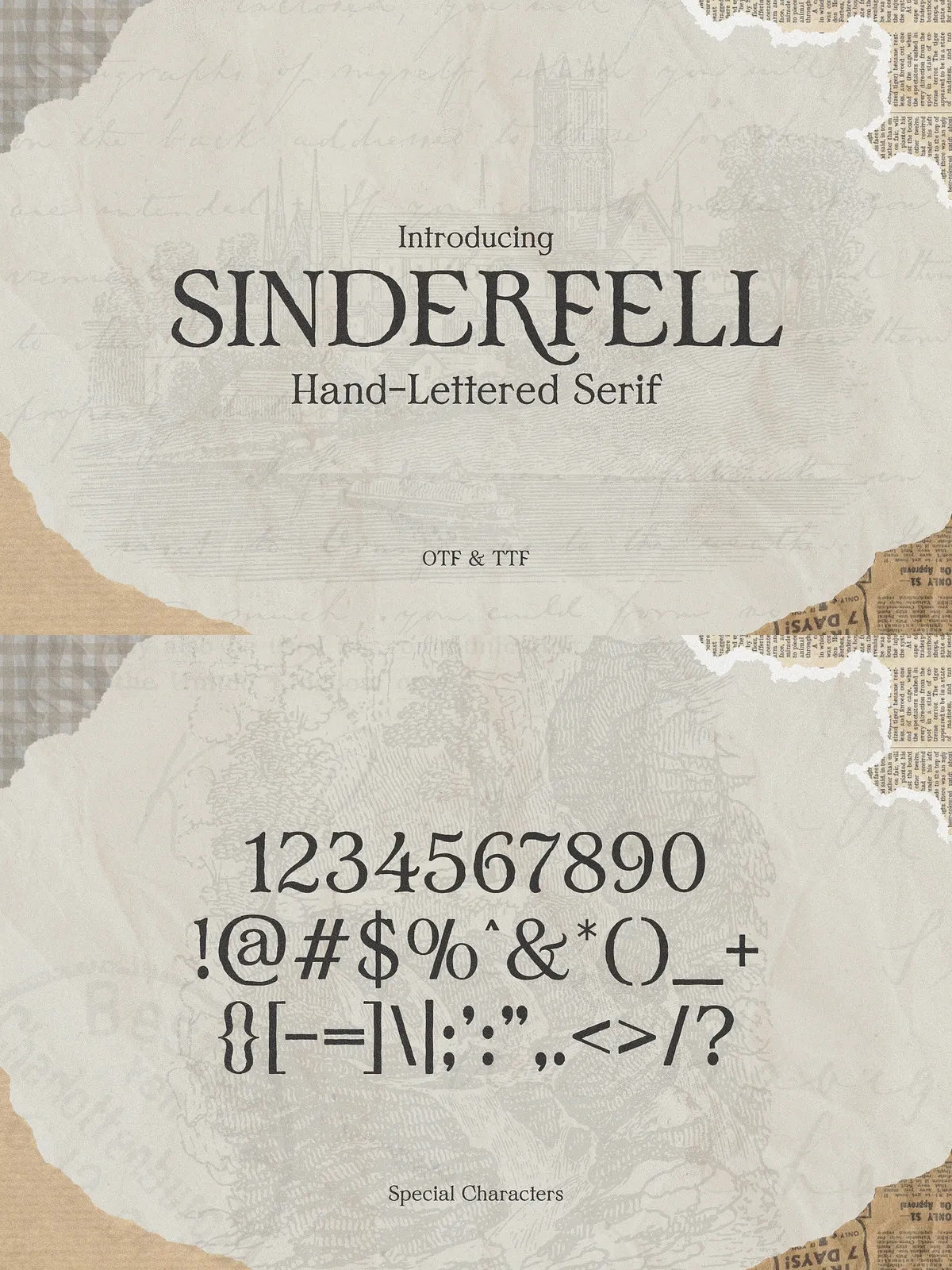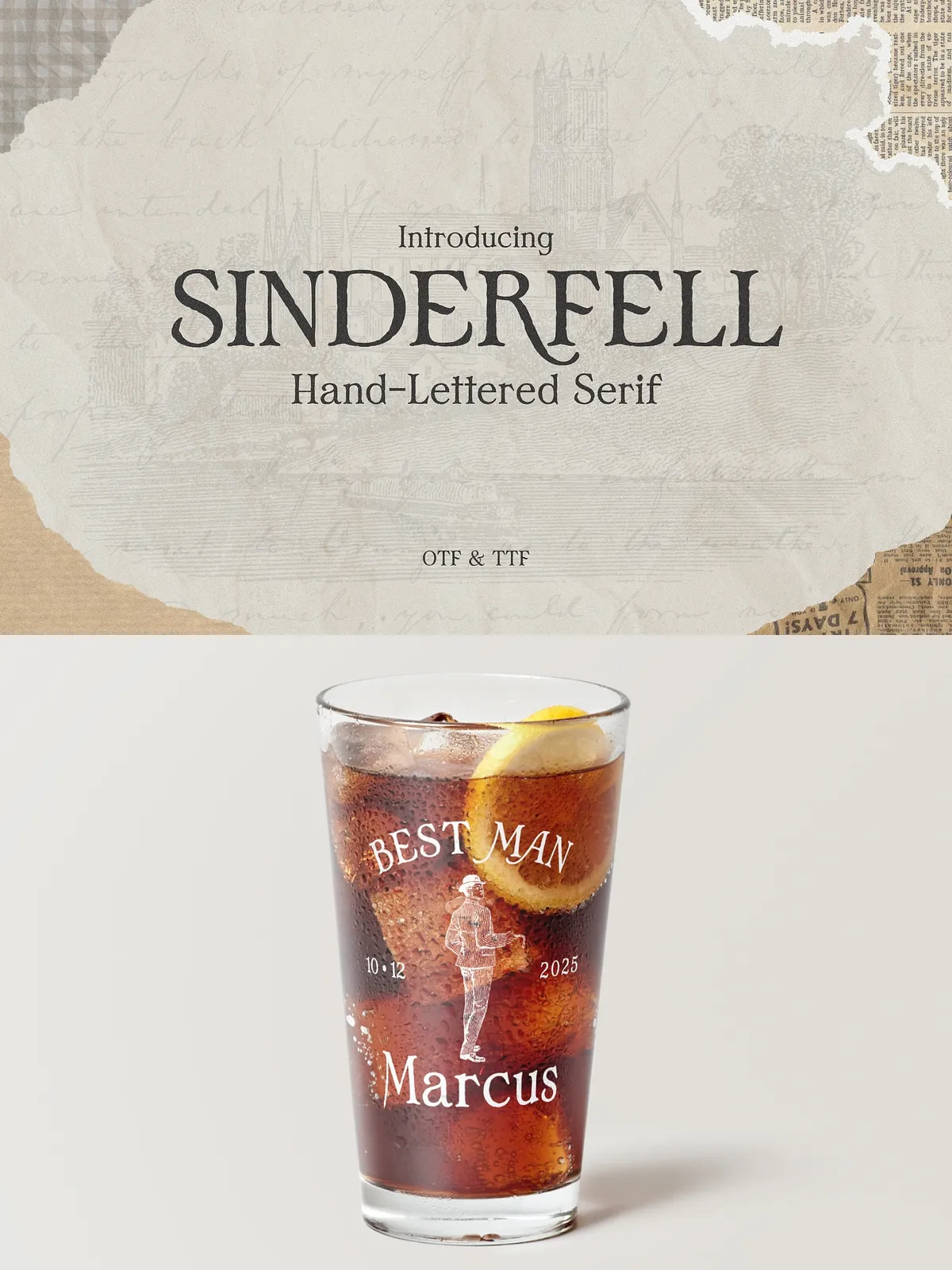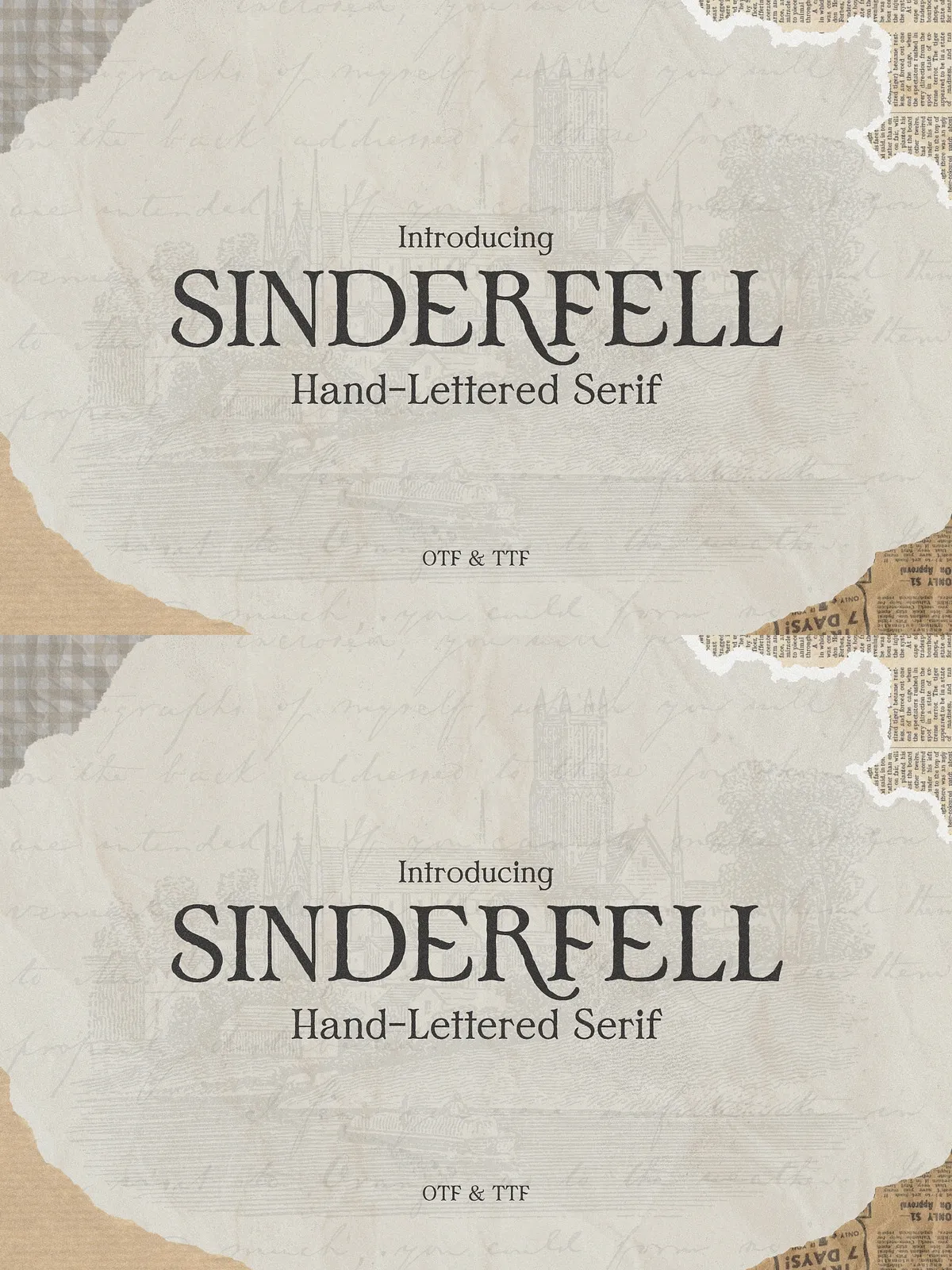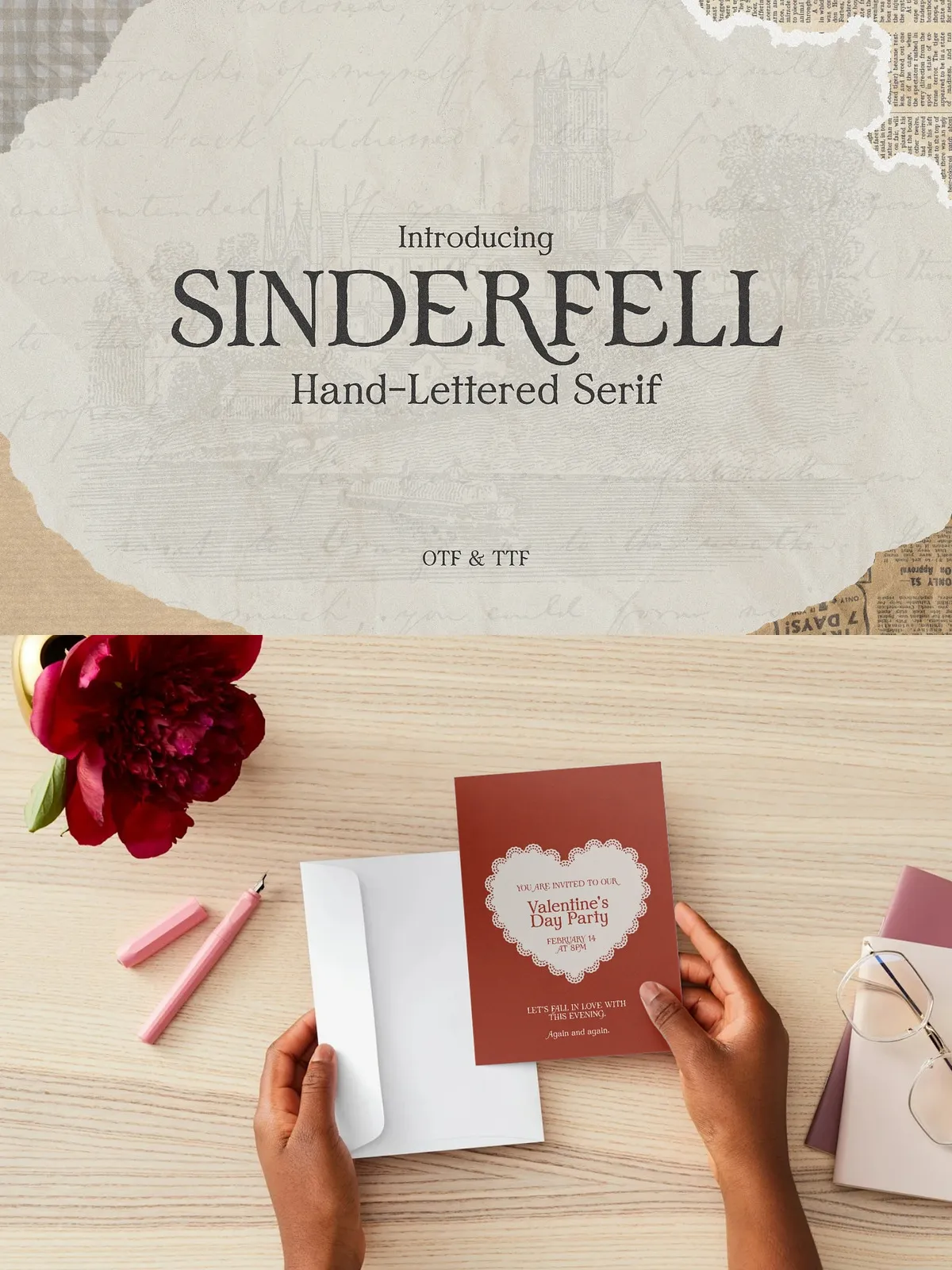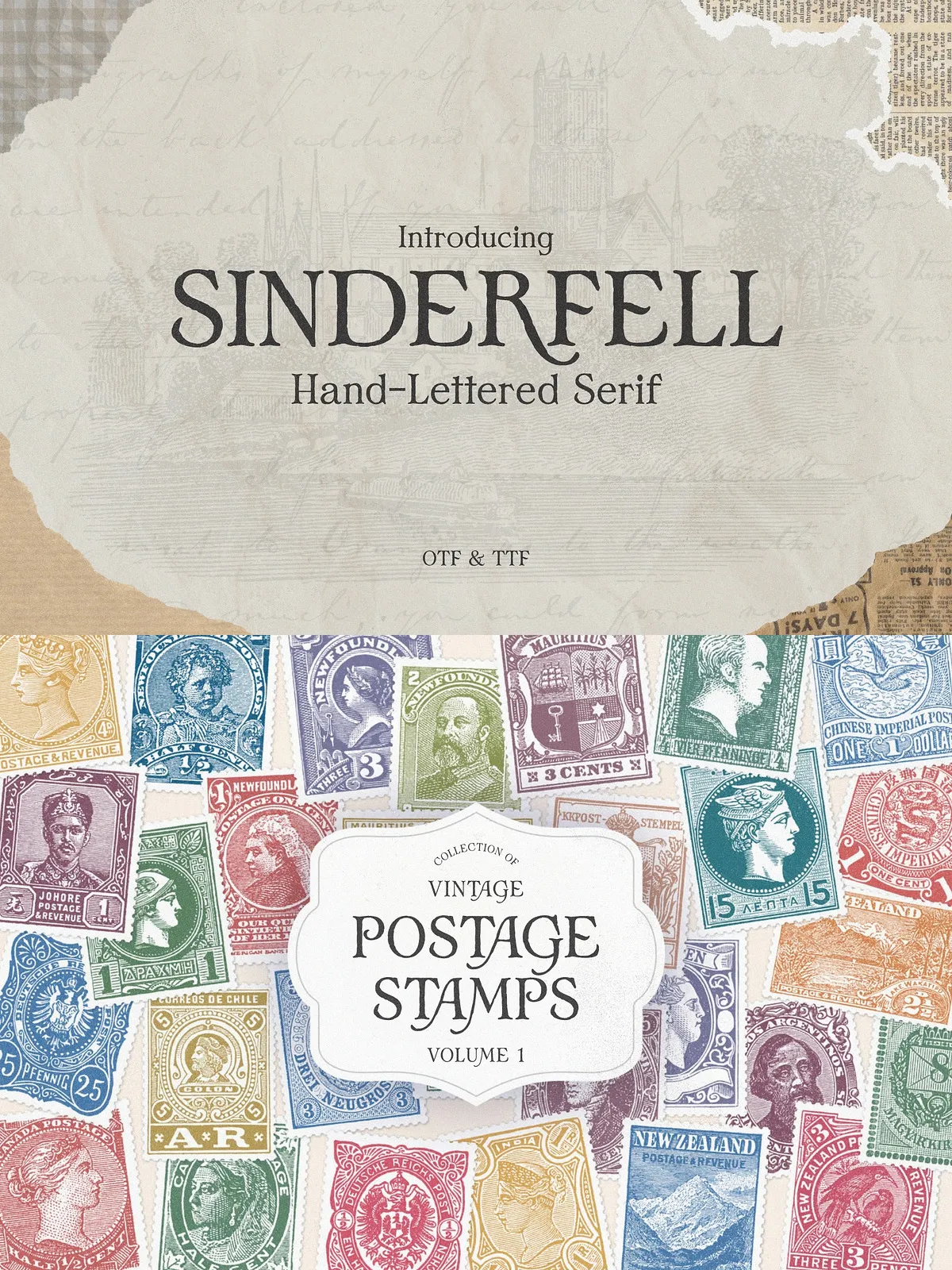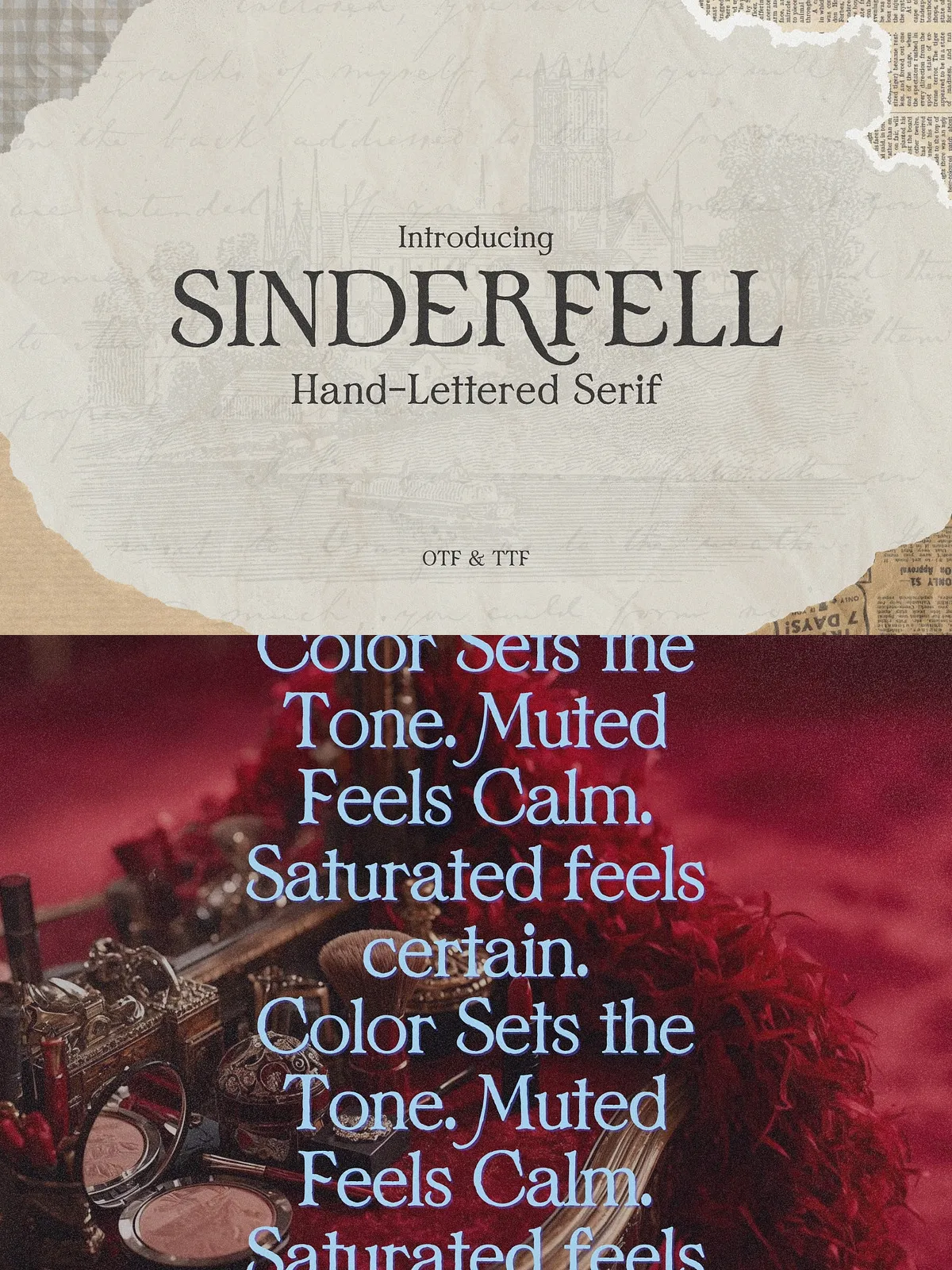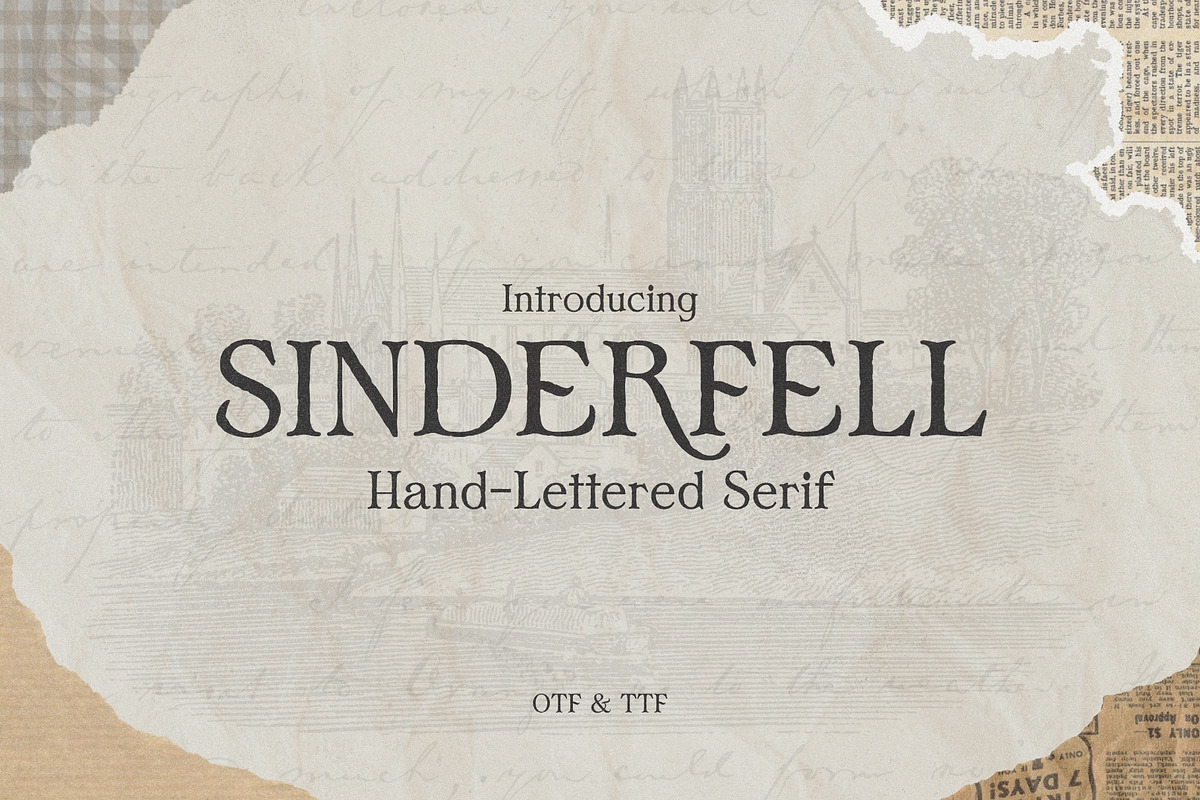
Sinderfell is a vintage hand-lettered serif that delivers warmth, authenticity, and timeless character. Carefully drawn by hand, each glyph displays subtle imperfections, organic edge variations, and texture that evoke traditional printmaking and antique signage. Designed to look lived-in rather than over-refined, Sinderfell gives designers a distinctly human voice for projects that demand soul, heritage, and visual depth.
Design Inspiration & Character
Rooted in Heritage Craftsmanship
Inspired by old book covers, faded packaging, heritage branding, and historic signage, Sinderfell channels the tactile quality of analog processes. The letterforms balance rugged charm with thoughtful refinement: sturdy serifs, slightly irregular strokes, and purposeful roughness create a convincing vintage feel while preserving legibility. This balance makes Sinderfell an ideal choice when you want nostalgic appeal without sacrificing clarity.
Personality and Tone
Sinderfell reads as rugged yet refined, imperfect yet beautiful. It projects sincerity, tradition, and artisanal care. Use Sinderfell to convey authenticity in brand narratives, to suggest craft in product design, or to anchor editorial projects in a sense of place and history. Its tonal range works equally well for bold headlines and expressive display treatments.
Features
Production-Ready Capabilities
- Hand-drawn uppercase and lowercase character sets that preserve organic irregularities
- Distinctive serifs and stroke terminals that enhance vintage aesthetics
- Alternates and stylistic options to vary appearance and avoid repetition
- Numerals, punctuation, and currency glyphs designed to match the typeface voice
- Well-tuned kerning pairs and consistent metrics for reliable typesetting
Perfect For
Primary Applications and Use Cases
- Logos and wordmarks that demand character and heritage
- Whiskey, beer, and spirits labels seeking old-world authenticity
- Coffee packaging, artisan food products, and small-batch goods
- Editorial headlines, book covers, and magazine features
- Apparel branding, patch designs, and vintage-inspired prints
- Posters, signage, and rustic wedding invitations
- Social media graphics and campaign visuals with a handcrafted look
How to Use Sinderfell Effectively
Design Tips and Best Practices
- Use Sinderfell as a primary display face—headlines, logos, and focal elements benefit most from its personality.
- Pair Sinderfell with a clean sans or neutral serif for supporting body text to maintain hierarchy and readability.
- Employ alternates and stylistic sets selectively to create bespoke wordmarks and avoid predictable repetition.
- Introduce subtle textures, paper grains, or letterpress effects to amplify the hand-made quality without obscuring letterforms.
- Adjust tracking carefully at large sizes to preserve the handcrafted rhythm; tighten slightly for compact lockups where appropriate.